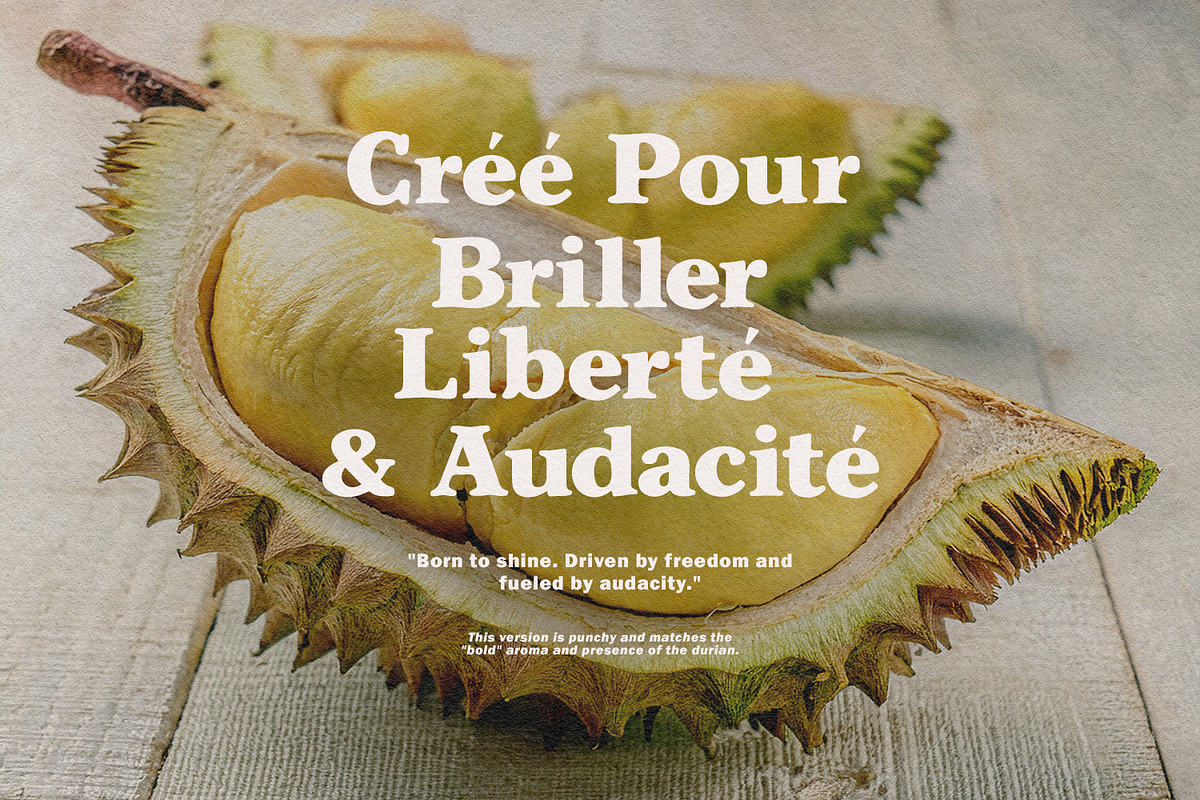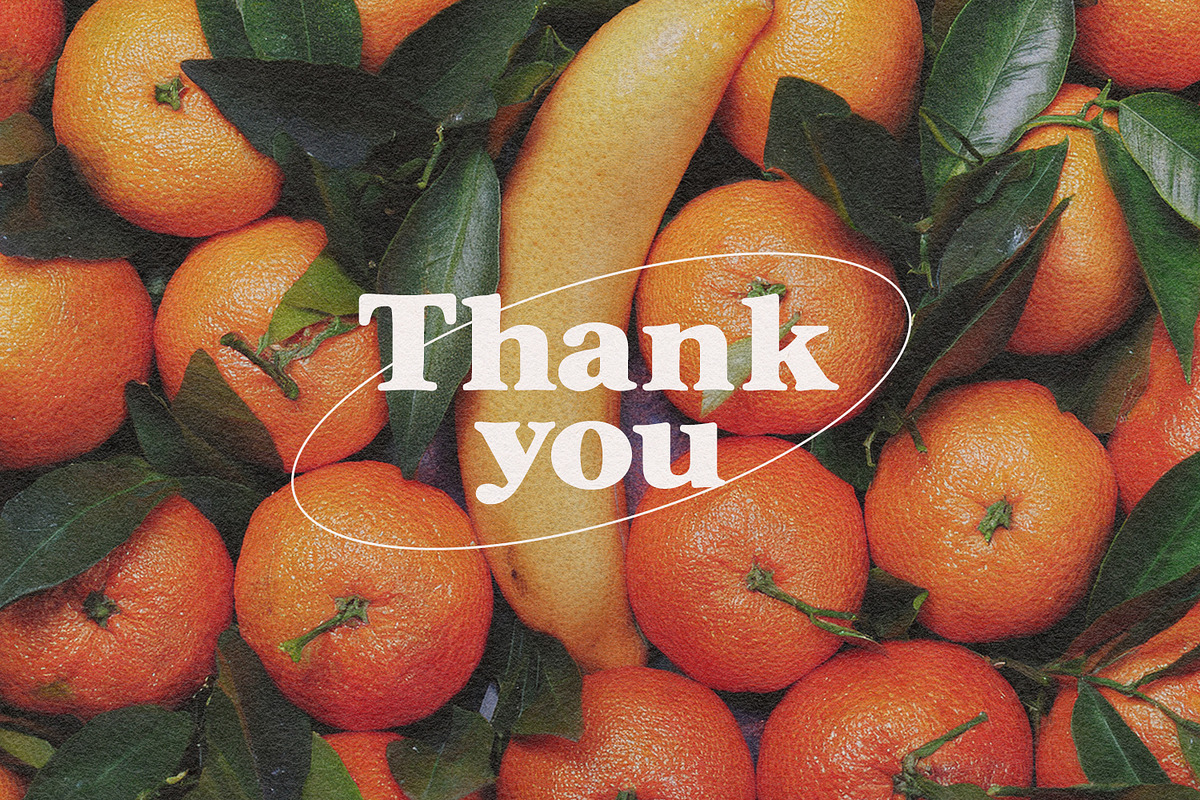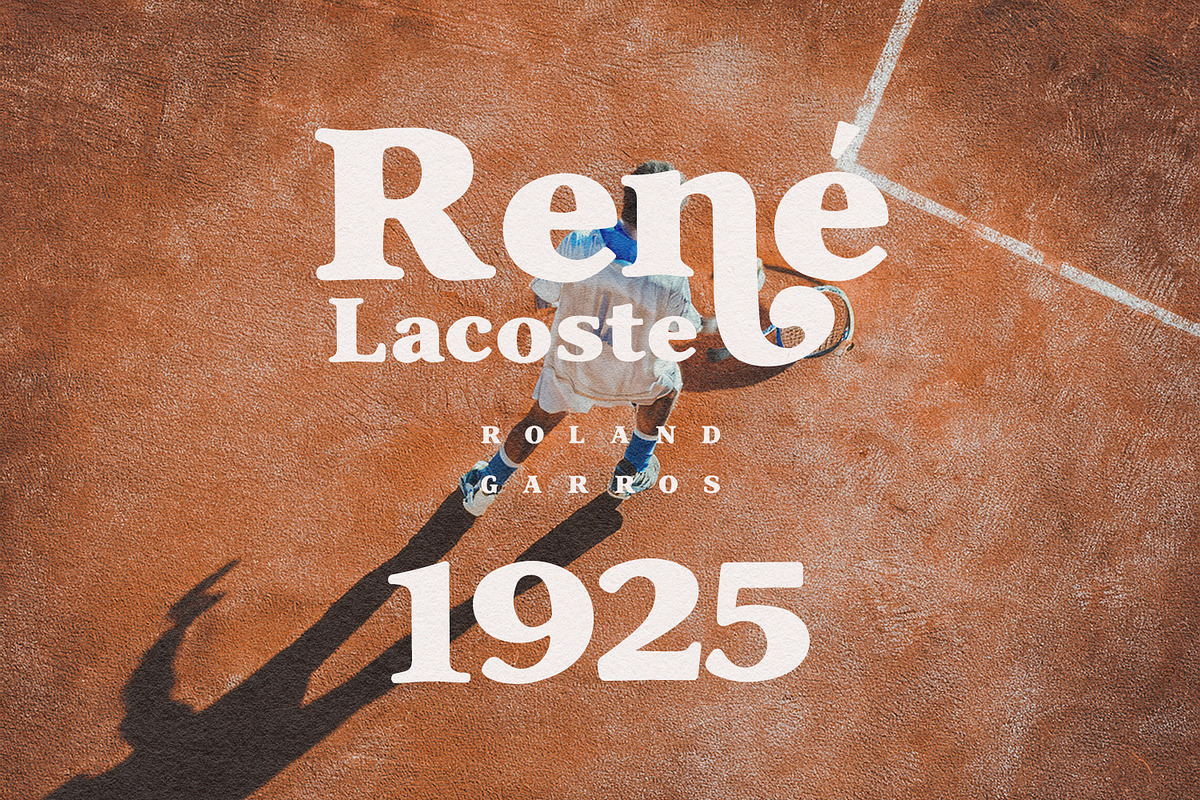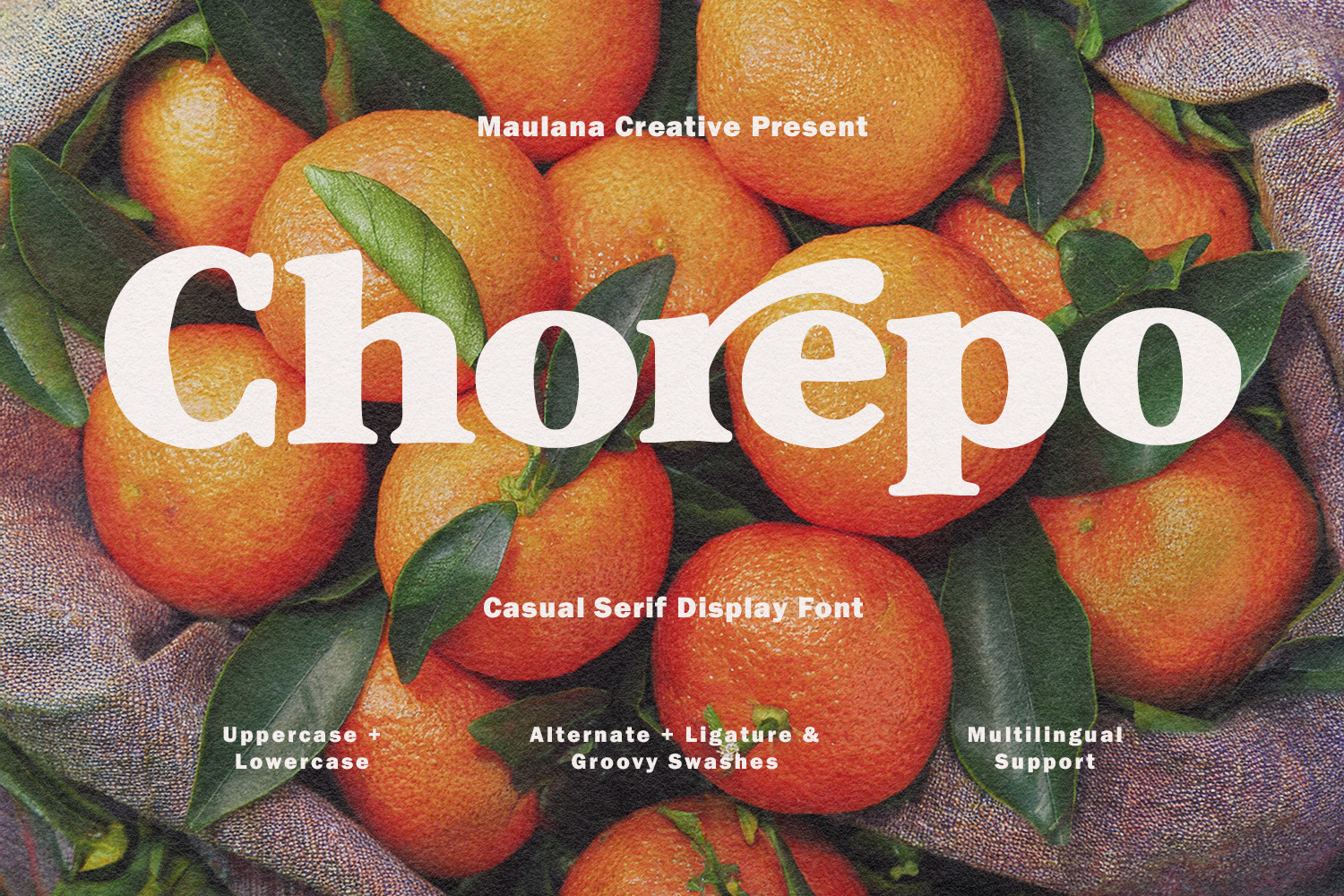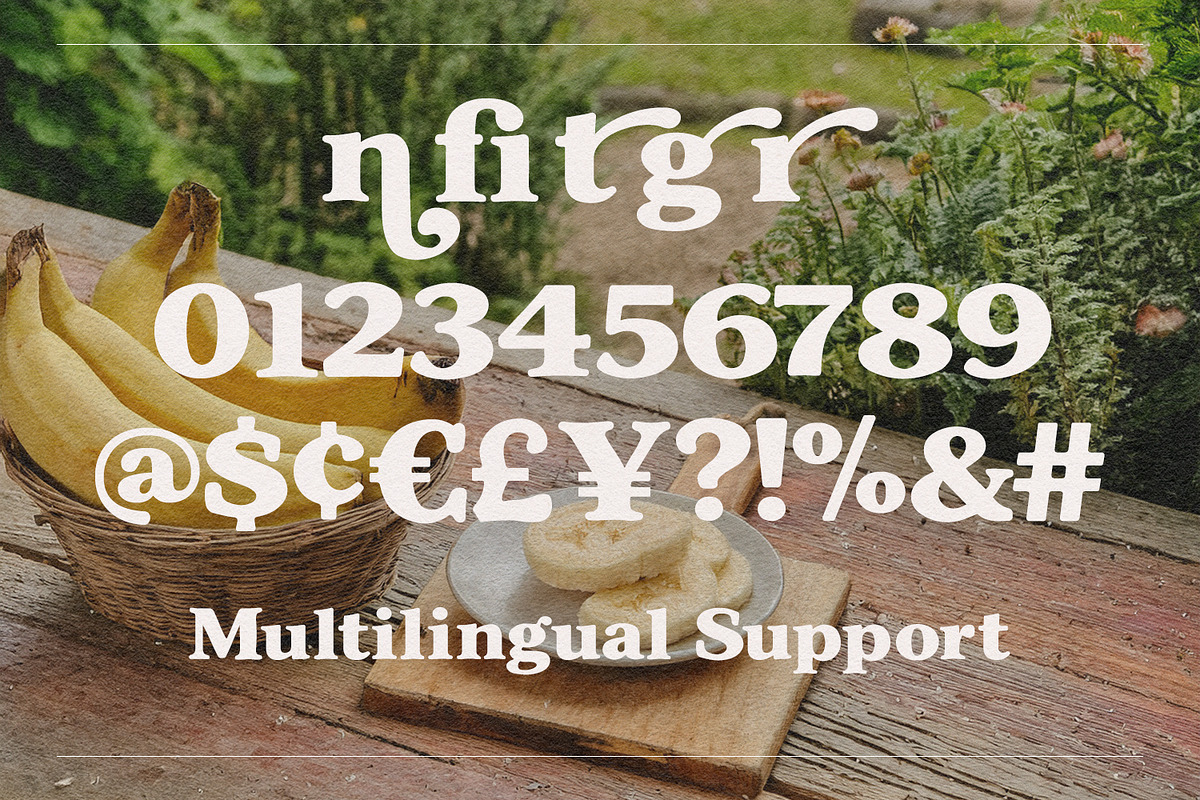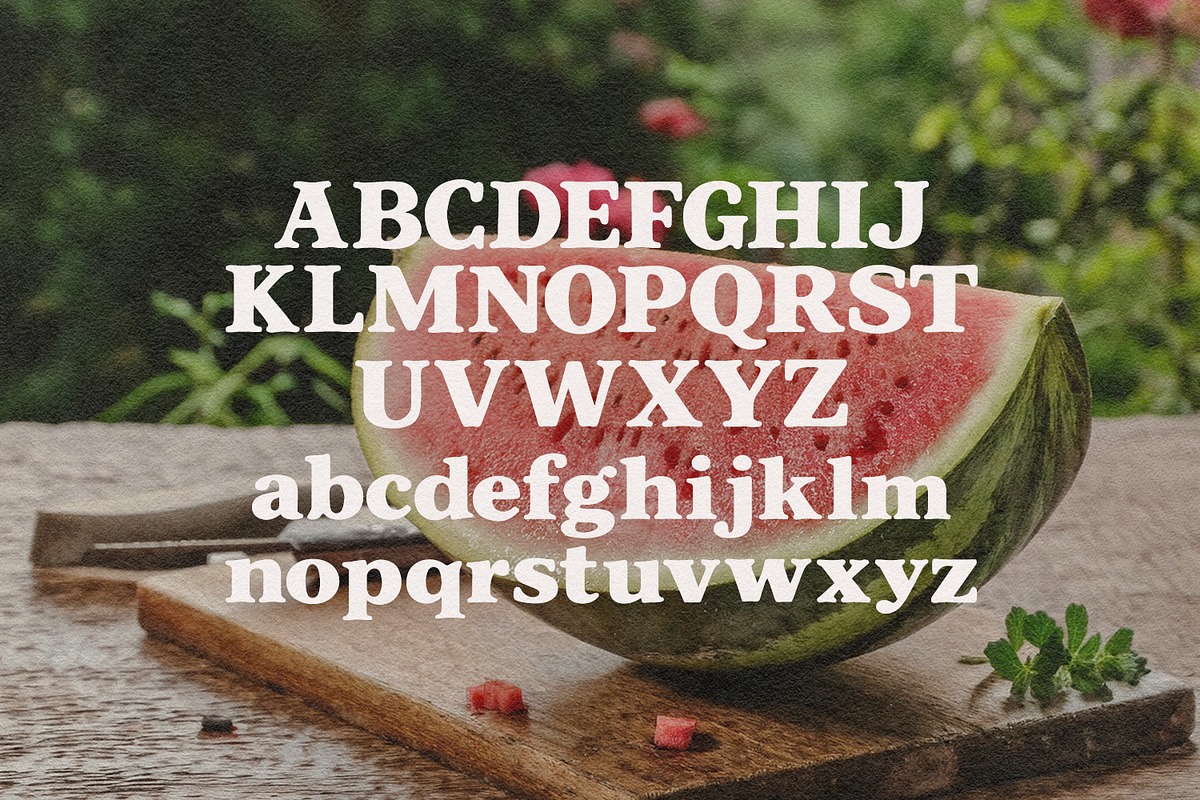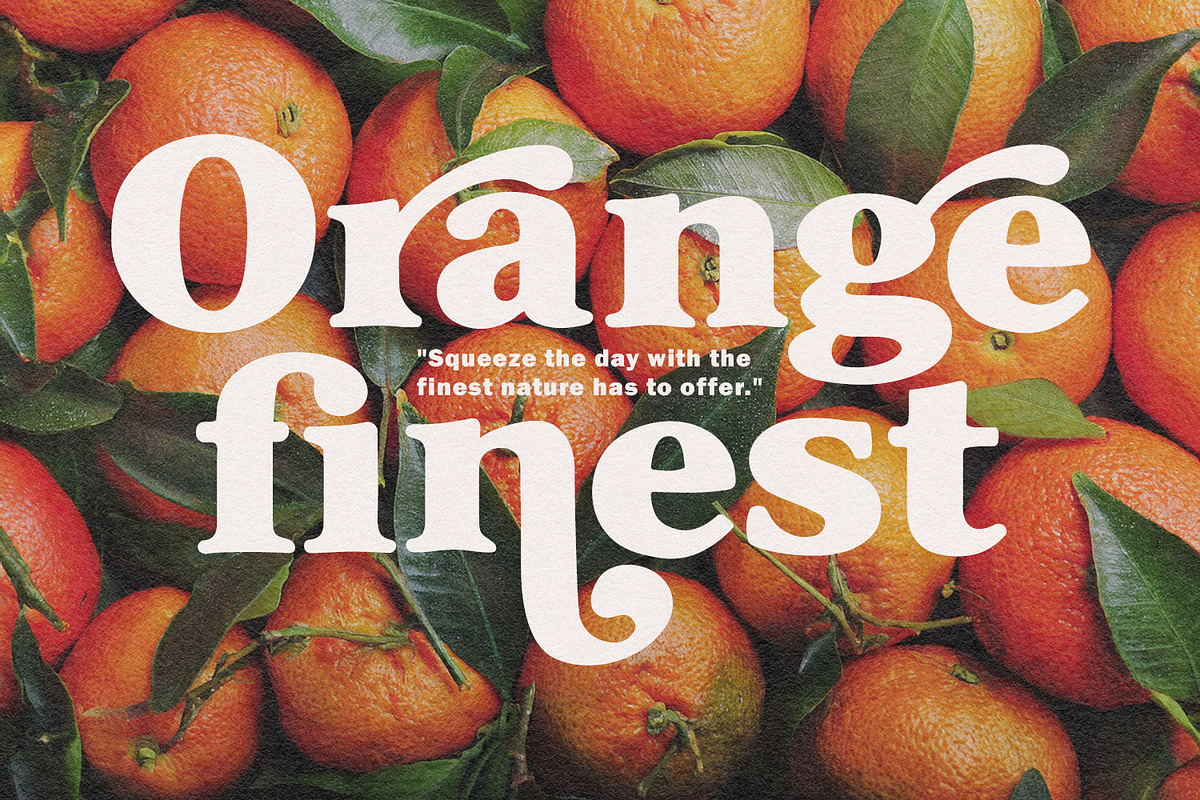
Chorepo Casual Serif Display Font
Chorepo is a bold, expressive casual serif display font that blends retro charm with modern playfulness. Featuring thick, punchy strokes and unique "groovy swashes," this typeface is designed to stand out in branding, packaging, and headlines. It includes a full set of uppercase and lowercase letters, creative alternates, ligatures, and comprehensive multilingual support, making it as versatile as it is eye-catching.
- Full character set
- Numbers, Punctuation, and Symbols
- Alternate and Ligature